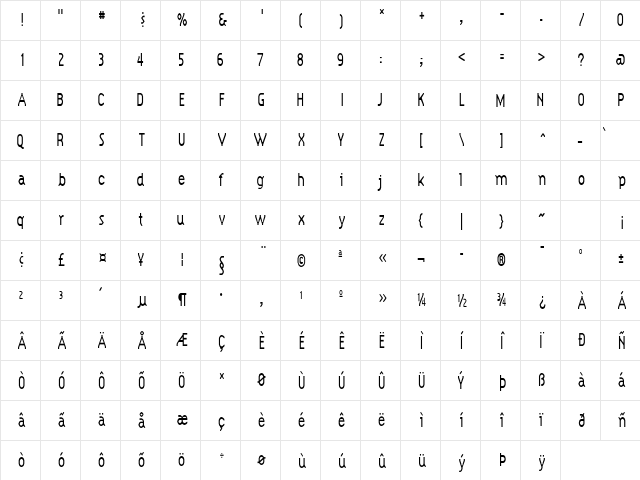
HypeStyleCondensed Regular
Design Context for HypeStyleCondensed Typeface
HypeStyleCondensed takes a measured approach to typography — its balanced proportions and neutral character make it a reliable workhorse for both digital and print work. Its narrow stance lets it pack a punch even in space-constrained designs.